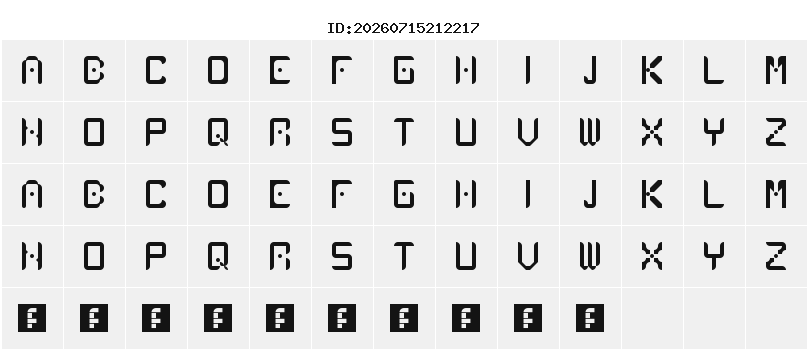
Atlancia Preview
• Font Name: Atlancia
• Font ID: FontStruct Atlancia
• Full Font Name: Atlancia Regular
• PostScript Name: Atlancia
• Character Count: 53
• Designer: lalato
• Description: ‚ÄúAtlancia‚Äù was built with FontStruct
About Atlancia.ttf
Atlancia.ttf is a modern, elegant sans-serif font designed for ultimate readability and visual harmony. Perfect for branding, headlines, web design, and print materials.